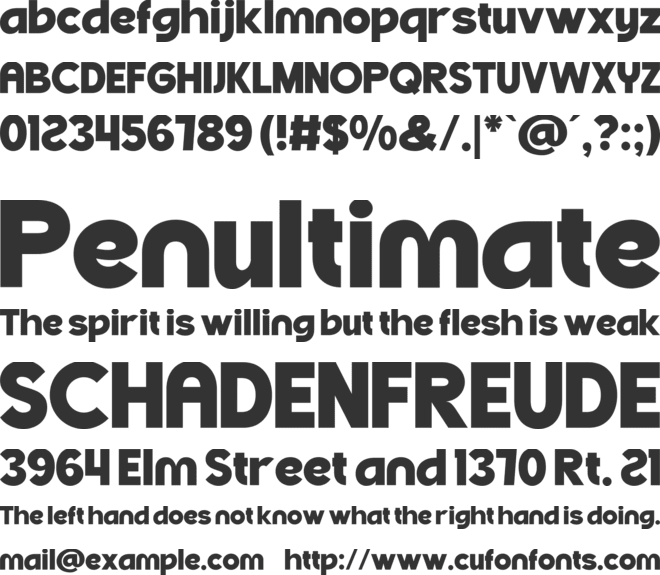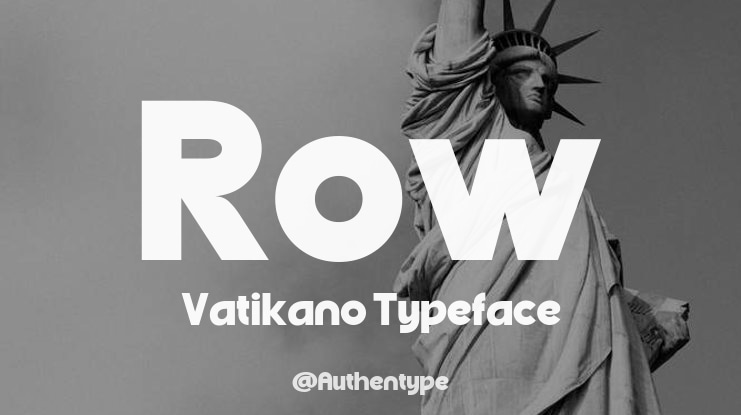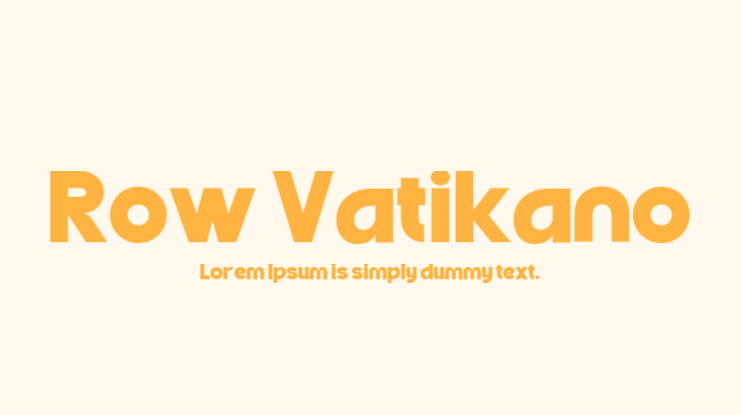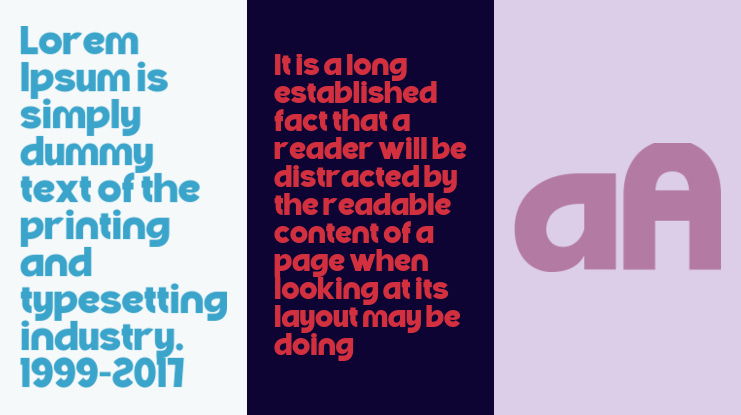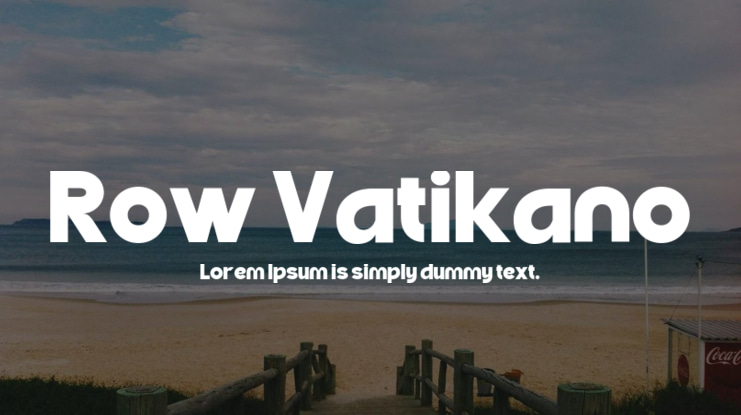
Row Vatikano Font
Authentype
Row Vaticano is a clean, minimalistic sans-serif font crafted to infuse your projects with ease and sophistication. Its relaxed and friendly appearance makes it ideal for brands aiming for an approachable yet modern aesthetic. With its balanced letterforms and soft edges, Row Vaticano is versatile and suitable for a range of design applications, including branding, packaging, and digital media.